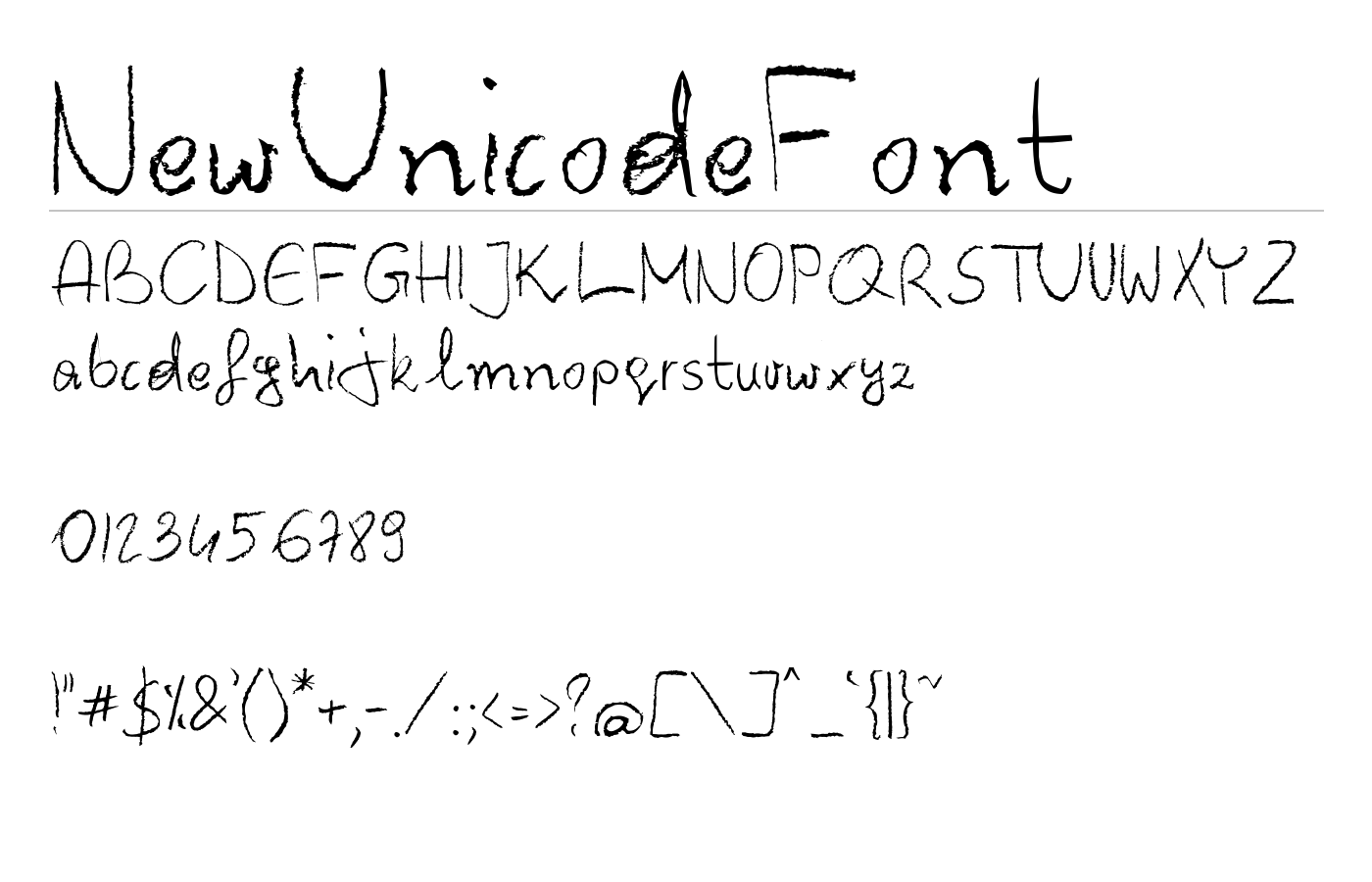
Barbarjowe Pisanki is a thin, handwritten-style font that exudes a casual, whimsical charm with its uneven strokes and playful letterforms. Its irregular, narrow characters and delicate lines give it a personal, organic feel, making it ideal for creative projects that want to convey warmth and individuality. This font works well for informal invitations, artistic branding, and expressive headlines where a unique, hand-crafted touch is desired.
Barbarjowe Pisanki Font
About Barbarjowe Pisanki Font
| Designer | barbarja (barbara ≥ukasik) |